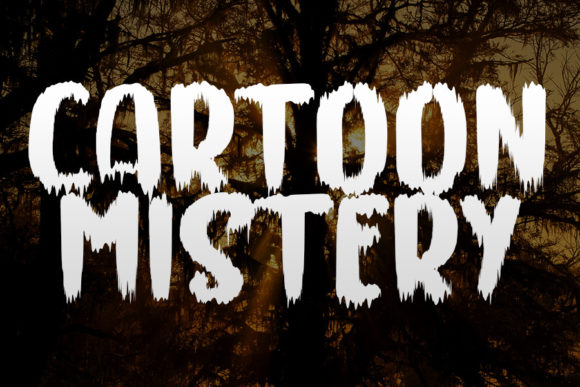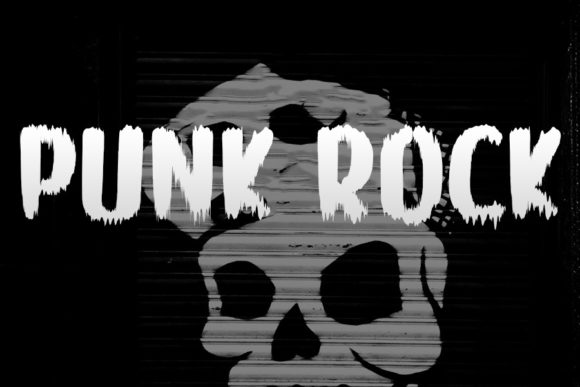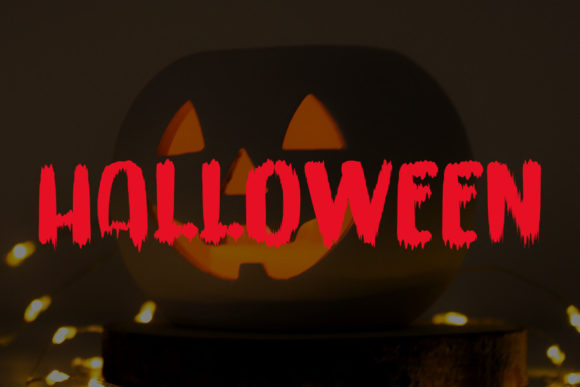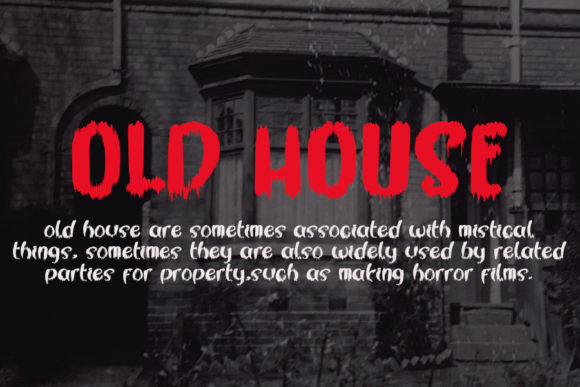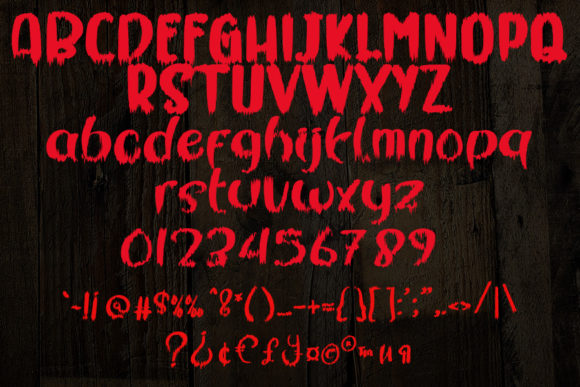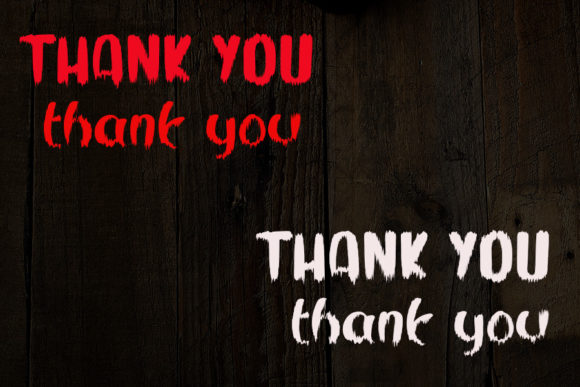
Unleash the Spook: Discover the Buried House Font for Your Halloween Projects
As the spookiest time of the year approaches, designers and crafters are on the lookout for the perfect typography to add a dash of eeriness to their Halloween-related projects. If you’re searching for a font that embodies the spirit of the season, look no further than the Buried House Font. This scary-looking display font is sure to send shivers down the spines of your audience, making it an ideal addition to your Halloween designs.
The Buried House Font: A Perfect Blend of Spooky and Fun
Buried House is a uniquely designed display font that exudes a sense of eeriness, making it perfect for Halloween-themed projects. Its distressed and worn appearance gives it a haunted look that’s sure to grab attention. The font’s design is inspired by creepy, abandoned houses, and its rugged texture adds to its spooky charm. Whether you’re working on a Halloween-themed invitation, poster, or social media graphic, Buried House Font is sure to add a touch of macabre whimsy.
Key Features of the Buried House Font
- Scary-looking display font: Buried House Font is designed to make a statement, with a bold and eerie appearance that’s perfect for grabbing attention.
- Distressed and worn texture: The font’s rugged texture gives it a haunted look that’s sure to add a touch of spookiness to your designs.
- Perfect for Halloween projects: Whether you’re working on a Halloween-themed invitation, poster, or social media graphic, Buried House Font is the perfect choice.
Tips for Using the Buried House Font in Your Designs
To get the most out of the Buried House Font, here are a few tips to keep in mind:
- Use it sparingly: While the Buried House Font is perfect for headlines and titles, it’s best to use it sparingly to avoid overwhelming your design.
- Pair it with complementary fonts: Pair the Buried House Font with a clean, sans-serif font to create a striking contrast.
- Experiment with colors: Try pairing the Buried House Font with bold, bright colors to create a spooky-ooking design.
Ideas for Using the Buried House Font
The Buried House Font is versatile and can be used in a variety of Halloween-themed projects, including:
- Halloween invitations: Create spooky invitations that set the tone for a haunted Halloween party.
- Posters and flyers: Design eye-catching posters and flyers that promote Halloween events or activities.
- Social media graphics: Create spooky social media graphics that are sure to grab attention.
- Craft projects: Use the Buried House Font to add a touch of spookiness to your craft projects, such as Halloween-themed cards or decorations.